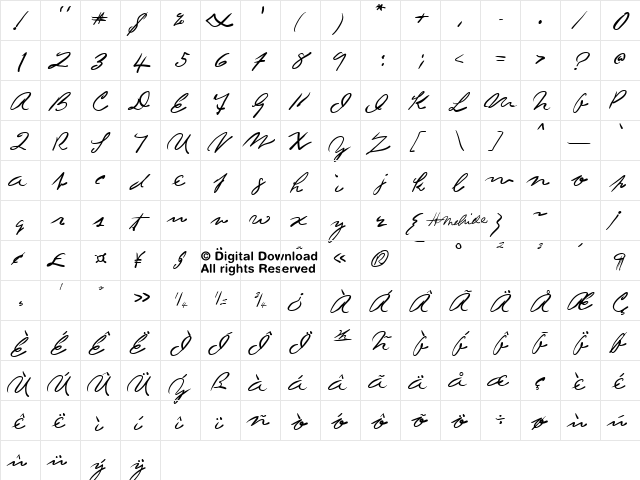
Melville Moby Regular
Design Context for Melville Moby Typeface
Melville Moby takes a measured approach to typography — its balanced proportions and neutral character make it a reliable workhorse for both digital and print work.